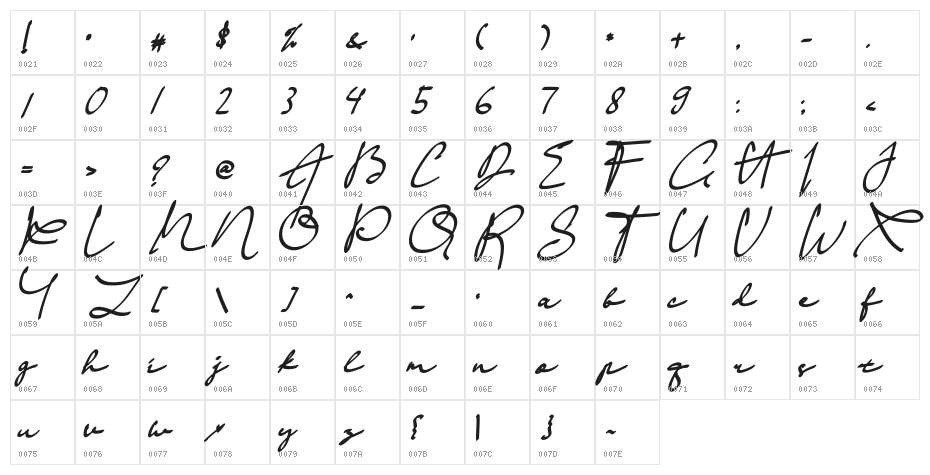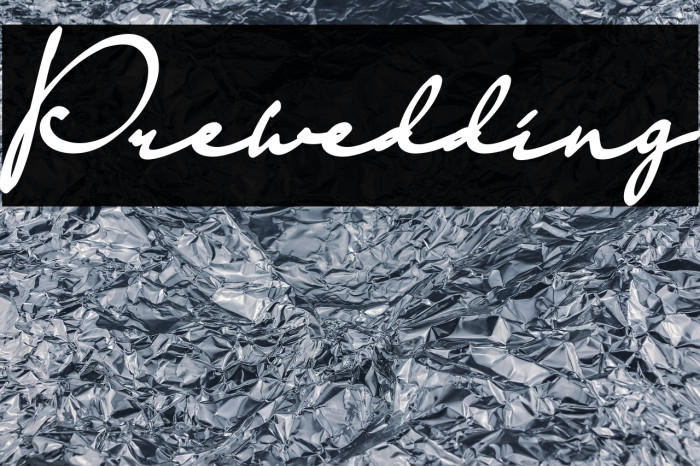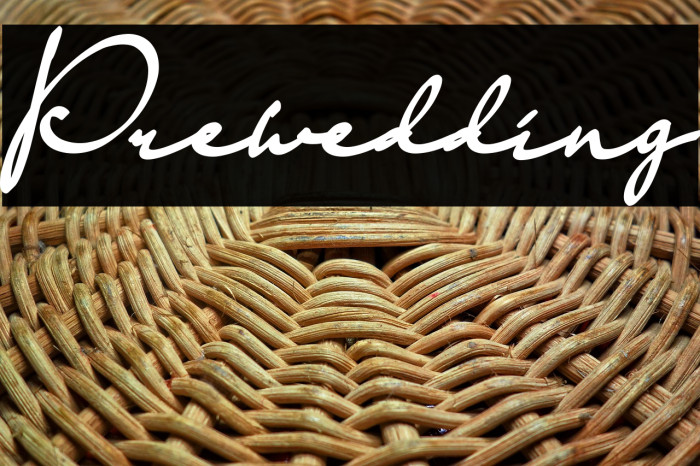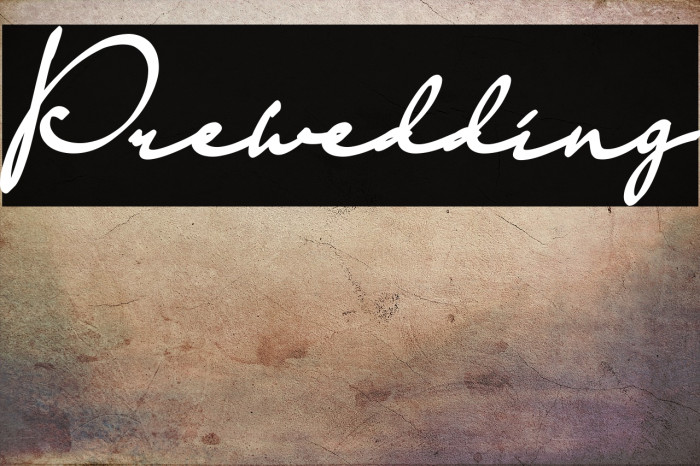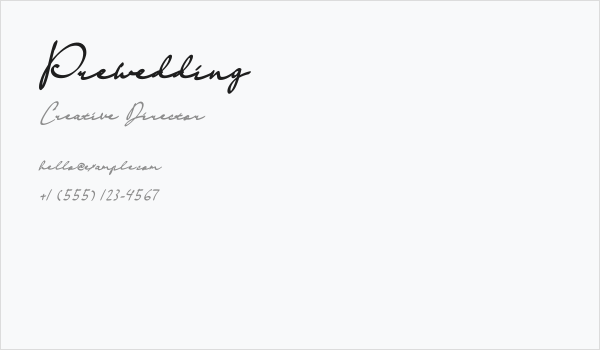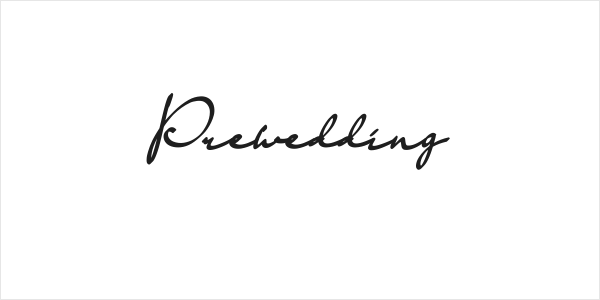
Prewedding Font
Prewedding Description
This font features a flowing, cursive style with a handwritten appearance. The uppercase letters are elegantly connected, creating a sense of fluidity and movement. The lowercase letters maintain a consistent style, with smooth curves and loops that enhance the handwritten feel. Numbers are bold and slightly slanted, matching the overall aesthetic. Special characters are creatively integrated, maintaining the cursive style. The font exudes a personal and artistic touch, making it suitable for projects that require a humanistic and approachable feel.
| Proposed Projects | Ideal for wedding invitations, personal branding, greeting cards, and artistic projects. |